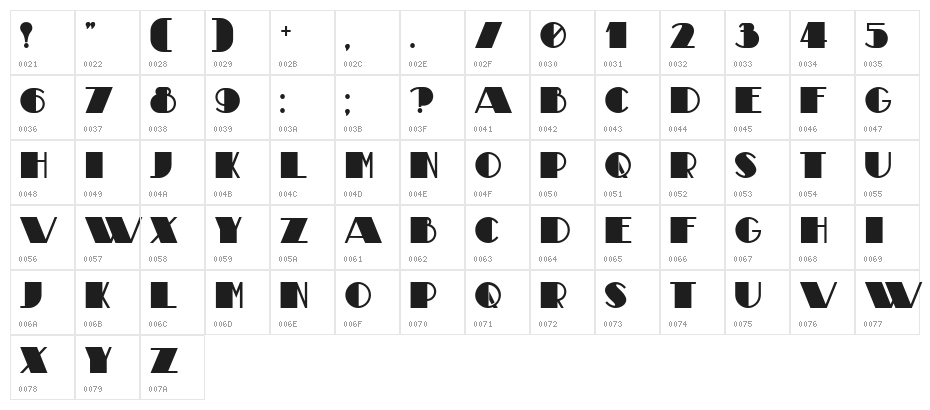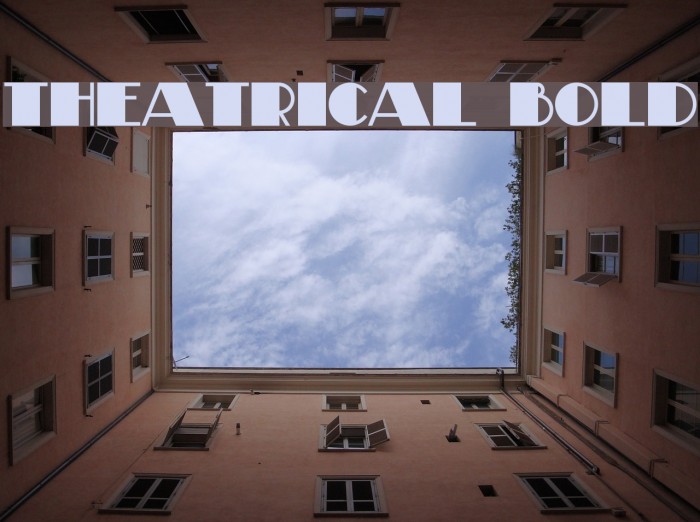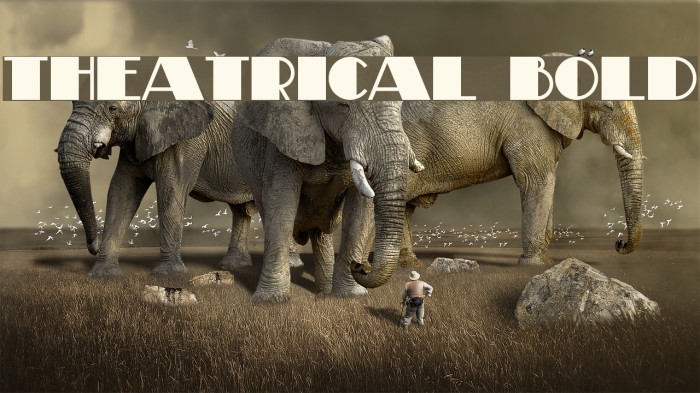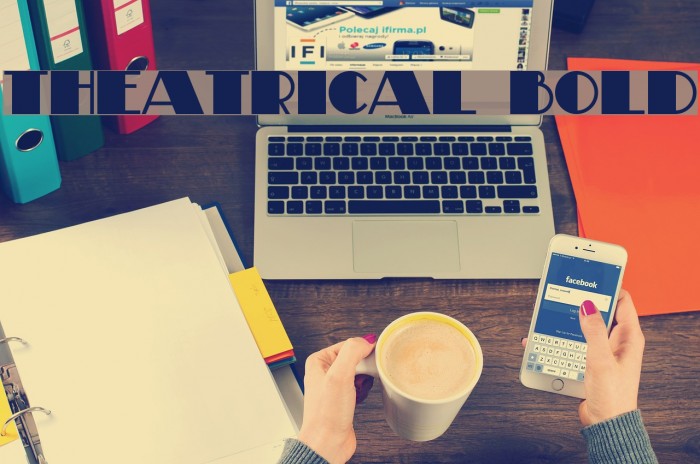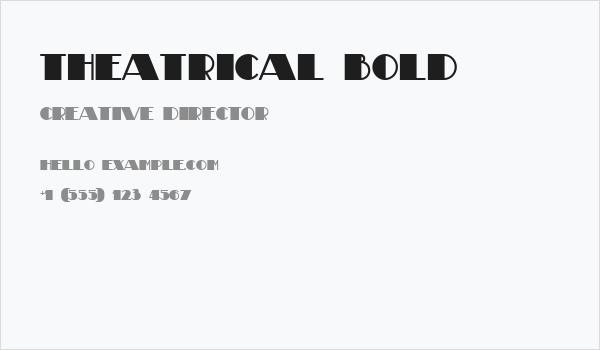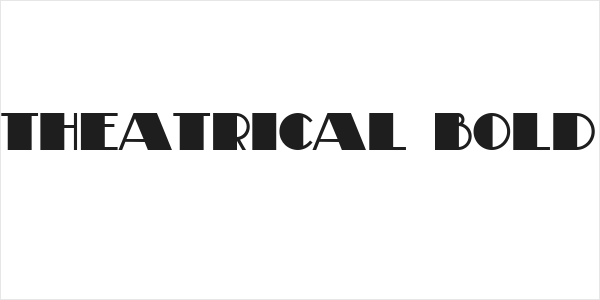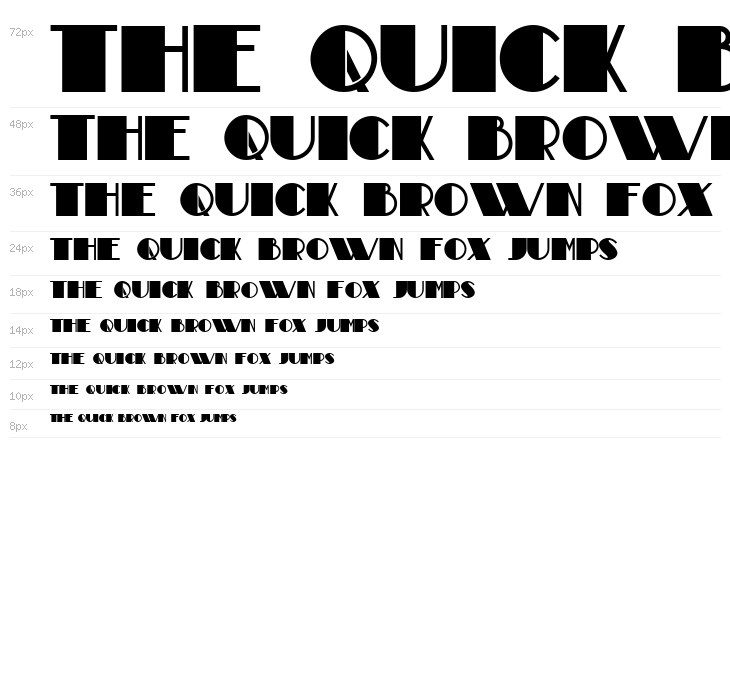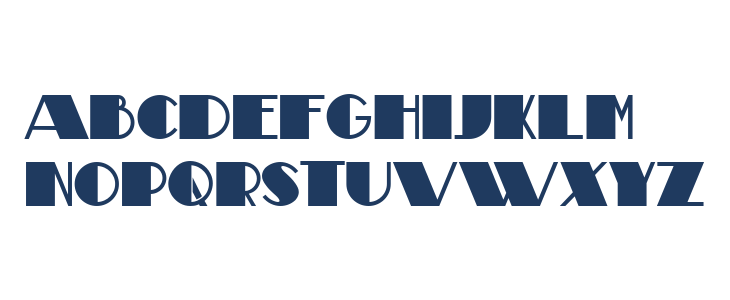
Theatrical Bold Font
Theatrical Bold Description
This font features a bold and theatrical style, characterized by its strong geometric shapes and high contrast between thick and thin strokes. The uppercase letters are particularly striking, with sharp angles and a sense of drama that makes them stand out. The lowercase letters maintain the same boldness, ensuring consistency throughout the typeface. Numbers and special characters are designed with the same attention to detail, making them suitable for a variety of uses. The overall appearance is both modern and decorative, making it ideal for eye-catching designs.
| Proposed Projects | Ideal for posters, headlines, branding, and any project requiring a dramatic and bold statement. |